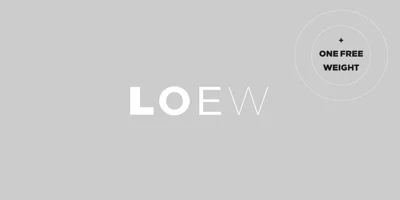
Loew Font
Loew Font is perfect for cinematic design projects including movie theaters, film production companies, entertainment venues, classic cinema restorations, film festival promotions, movie poster designs, entertainment industry branding, and nostalgic Hollywood campaigns. This distinguished typeface works perfectly for vintage movie theaters, film studios, entertainment marketing agencies, cinema museums, and projects that celebrate the golden age of Hollywood and the timeless glamour of classic cinema entertainment.
What makes Loew Font exciting is its classic Hollywood character that perfectly captures the essence of golden age cinema and entertainment sophistication. The font features elegant letterforms with cinematic styling that reflects the glamour and prestige of classic Hollywood movie studios. Its entertainment design elements embody the spirit of cinematic excellence and Hollywood tradition, making it perfect for projects that need to convey glamour, entertainment, and connection to film heritage. The carefully crafted cinematic proportions create an atmosphere of Hollywood sophistication and entertainment authenticity.
Loew Font comes in multiple family variations including cinematic, classic, entertainment, and Hollywood styles. Each weight maintains the distinctive cinema character while offering different levels of entertainment intensity and Hollywood presence. The font family includes cinema alternates, entertainment ligatures, and Hollywood variations that provide designers with comprehensive options for creating truly glamorous and authentically cinematic typographic compositions that celebrate entertainment excellence.